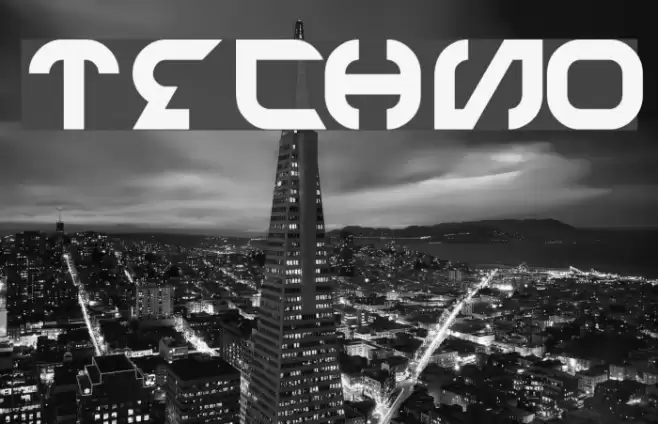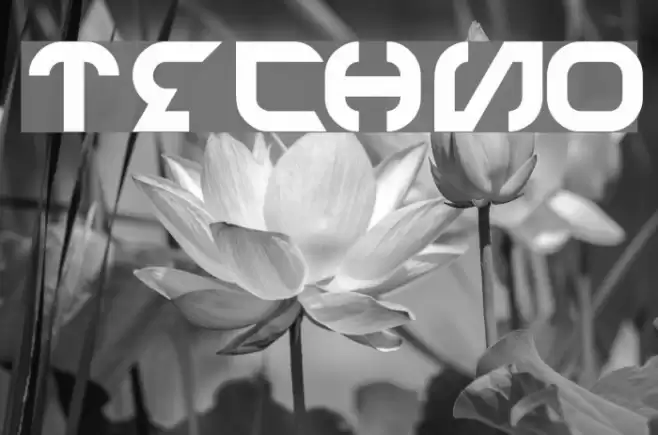
TECHNO Font
TECHNO Description
This font exhibits a futuristic and geometric design, characterized by its bold and angular letterforms. The uppercase letters are crafted with sharp edges and a distinct mechanical style, giving it a modern and technological appearance. The characters are uniform in height, with unique cutouts and angles that create a sense of movement and innovation. This font is ideal for projects that require a strong, impactful visual presence, such as technology branding, sci-fi themes, or digital interfaces. Its bold structure ensures readability while maintaining a distinctive aesthetic.
A futuristic, geometric font with bold, angular letterforms and a technological style from Uncategorized fonts.
- Proposed Projects: Ideal for technology branding, sci-fi themes, digital interfaces, and modern advertising.